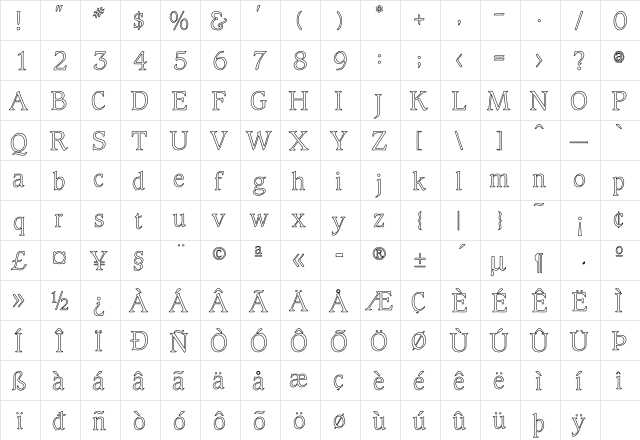
Alpine Ho Regular Font Preview
Alpine Ho Regular
Design Context for Alpine Ho Typeface
Alpine Ho is a composed and adaptable typeface that performs quietly and consistently across a wide range of design contexts.